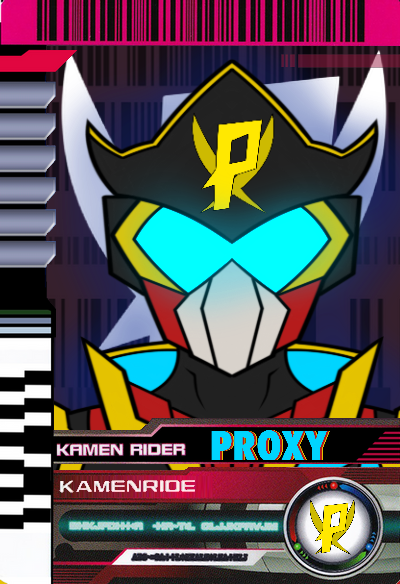
Font ini adalah hasil pembuatan ulang dari font yang muncul pada serial Kamen RIder Blade yang diproduksi oleh TOEI/Bandai
This font is a remake of the font that appeared in the Kamen RIder Blade series produced by TOEI/Bandai